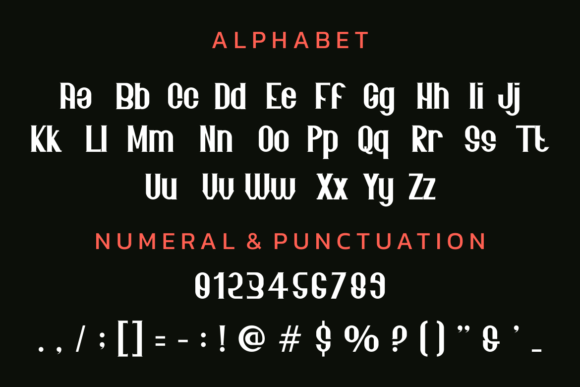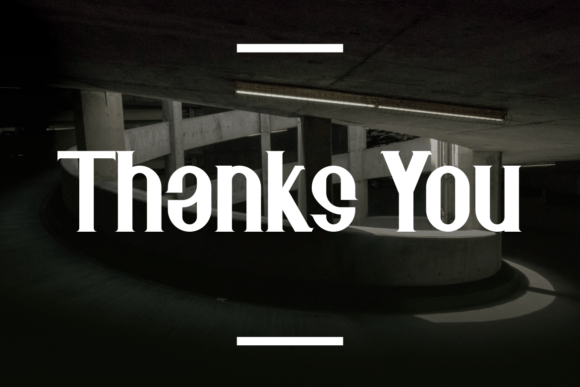
Introduction to Hojin Font
Hojin is a modern and interesting display font.
With its cool and unique appearance, this font is perfect for a wide range of projects .
Key Features of Hojin Font
Why Choose Hojin Font?
Hojin Font offers exceptional quality and versatility, making it a valuable addition to your design toolkit. Whether you’re creating for personal projects or commercial use, Hojin Font delivers professional results.